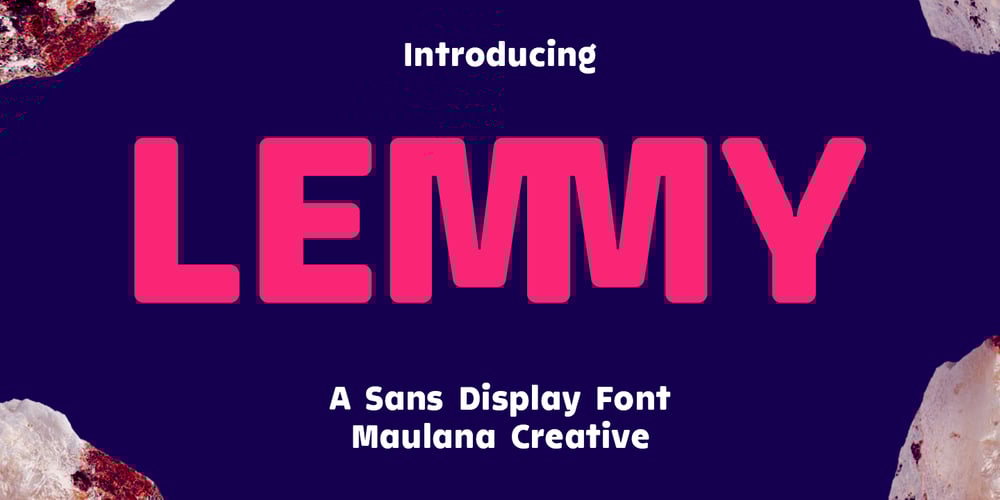
Lemmy Font Family was designed by Gilang Maulana and published by Maulana Creative. Lemmy contains 1 styles and family package options. Lemmy is a simply rounded sans serif font. With bold stroke, fun character with a bit of ligatures and alternates. To give you an extra creative work. Lemmy font support multilingual more than 100+ language. This font is good for logo design, Social media, Movie Titles, Books Titles, a short text even a long text letter and good for your secondary text font with sans or serif. Make a stunning work with Lemmy font. Cheers, Maulana Creative